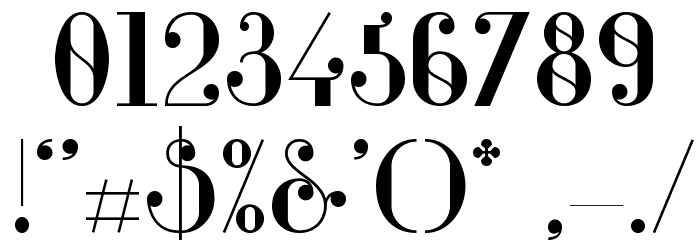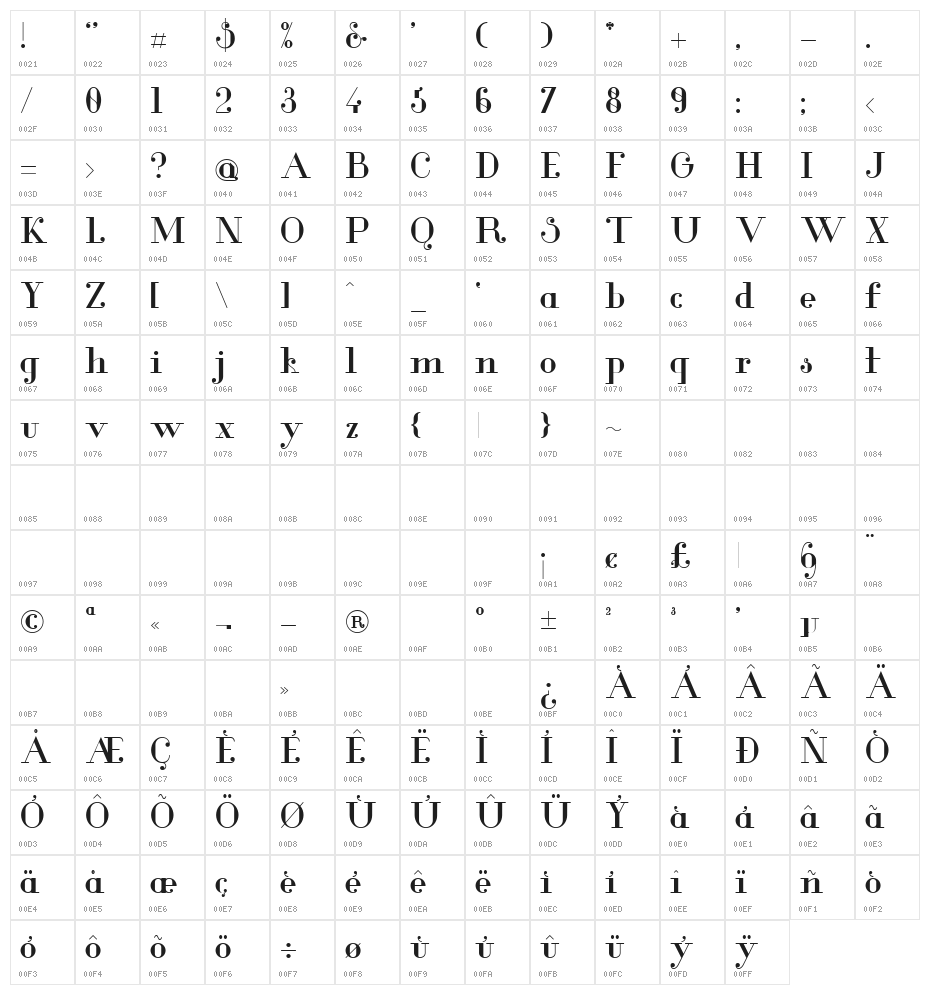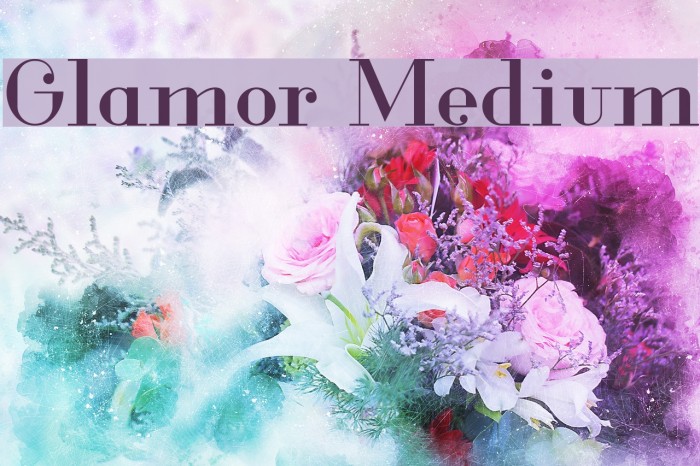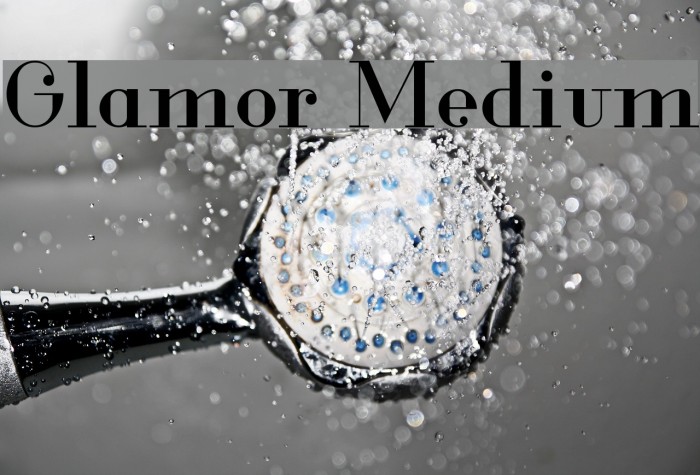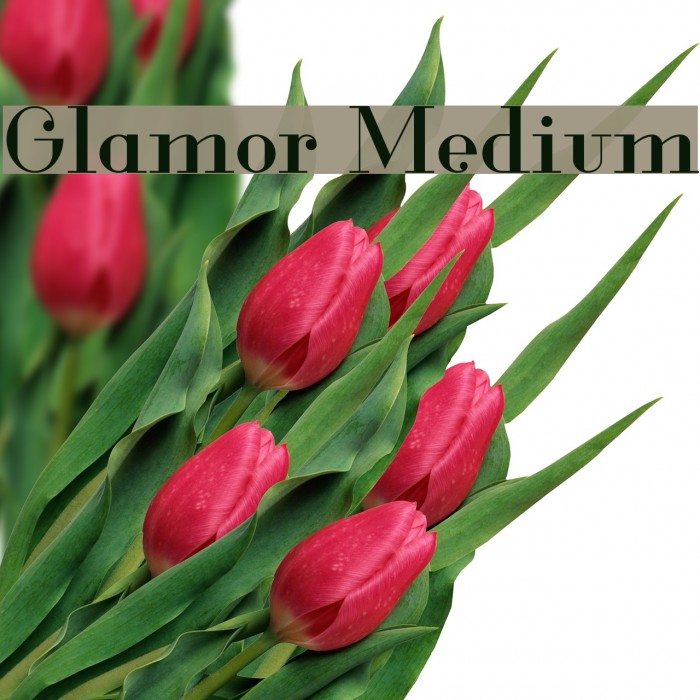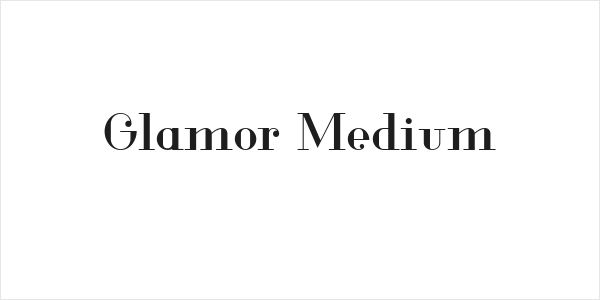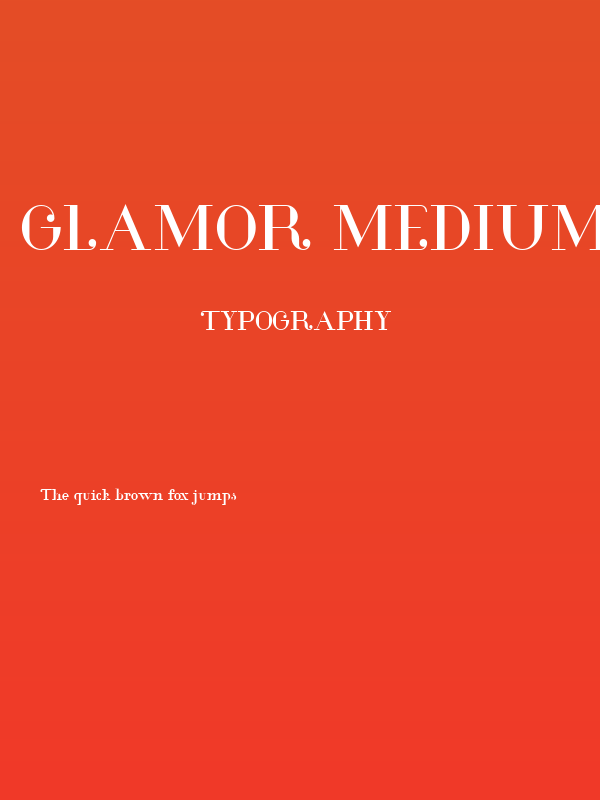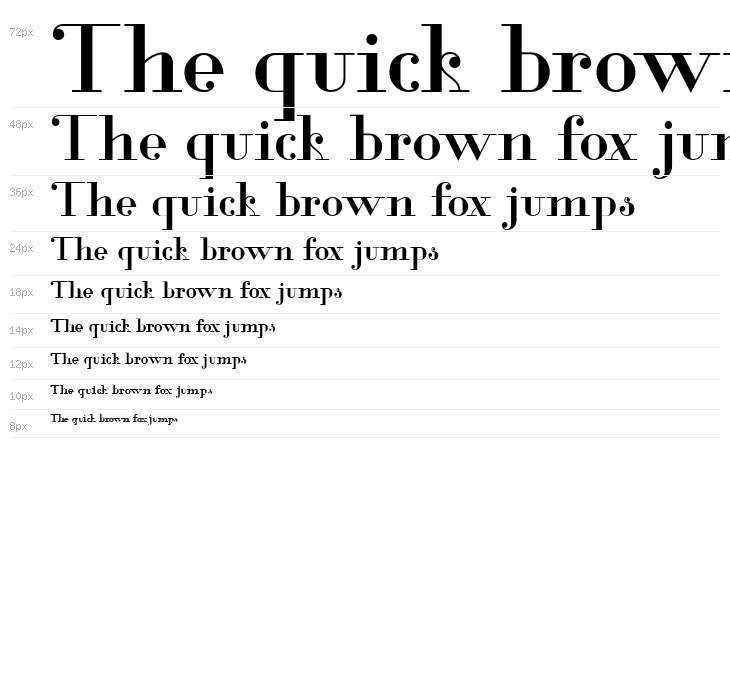
Glamor Medium Font
Glamor Medium Description
This font exudes a sense of elegance and sophistication with its high contrast between thick and thin strokes. The serifs are pronounced, adding a touch of classic charm, while the overall design maintains a modern flair. The uppercase letters are particularly striking, with unique embellishments that draw the eye. The lowercase letters are more understated but maintain the same level of refinement. Numbers are bold and distinctive, making them stand out in any design. Special characters are thoughtfully designed to complement the overall aesthetic, ensuring consistency across all text elements.